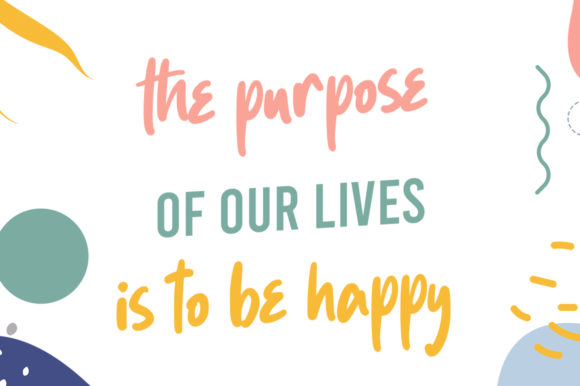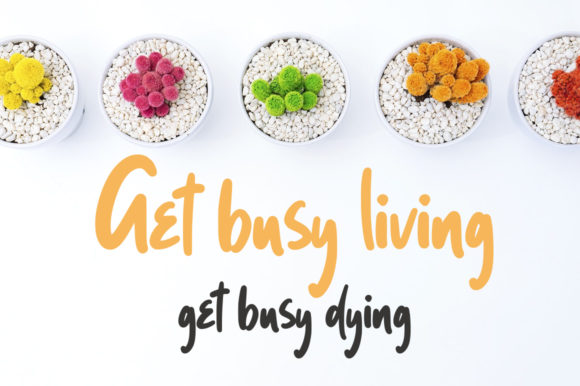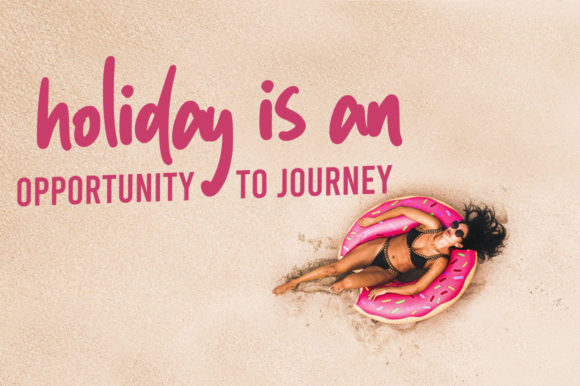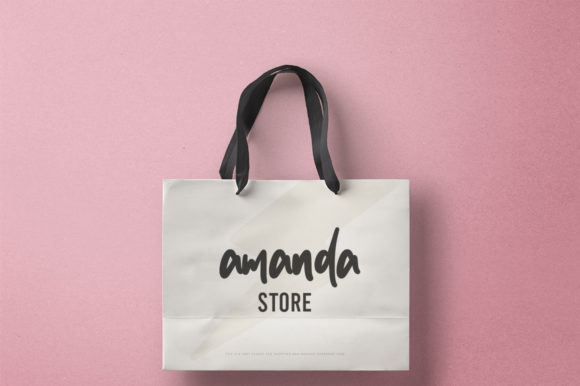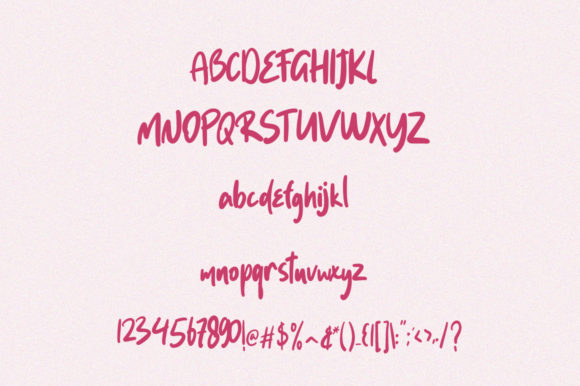
Brenlla Font: Unlock Your Creativity
You know that moment when you’re brainstorming ideas and everything clicks into place? Your mind is racing with possibilities, and your imagination is running wild. It’s exhilarating, isn’t it? For designers, finding the perfect font can be the missing piece that takes a project from good to great. That’s where the Brenlla Font comes in – a sweet and friendly handwritten font that’s sure to bring a smile to your face.
Brenlla Font is designed to be versatile and adaptable, making it the perfect addition to a wide range of designs. From wedding invitations to social media graphics, its natural and unique style will add a personal touch that sets your work apart. Whether you’re a seasoned pro or just starting out, Brenlla Font is a valuable asset to have in your design toolkit.
Brenlla Font Key Features
- Unique Characteristics: The font features a unique blend of Scandinavian and minimalist design elements, making it perfect for designers looking for a modern and stylish font.
- Stylistic Sets: The font includes multiple stylistic sets, allowing designers to customize the font to suit their specific design needs and preferences.
Brenlla Font Review
I recently had the chance to work with the Brenlla font, and I’m excited to share my thoughts with you. Overall, I found it to be a beautiful and unique font, perfect for adding a touch of elegance to your designs.
- Elegant and sophisticated feel: The Brenlla font has a classic, high-end feel that’s perfect for luxury brands or high-end designs.
- Versatile: The font is available in a range of weights and styles, making it easy to find the perfect fit for your design.
- Beautiful curves: The font’s curves are smooth and flowing, making it a joy to work with.
- Limited language support: The font only supports a limited range of languages, which may be a drawback for designers working on international projects.
- Not ideal for body text: The font is best suited for headlines and titles, as it can be difficult to read in large blocks of text.
Overall, I was impressed with the Brenlla font and its unique, elegant feel. While it may have some limitations, it’s a great choice for designers looking to add a touch of sophistication to their designs.
Tips for Getting the Most Out of Brenlla Font
Use Brenlla font for creative projects that require a unique and stylish look. This font is ideal for headings, titles, and emphasis.
Brenlla has been optimized for use in digital displays, with a focus on legibility at various screen resolutions and sizes. However, it’s always a good idea to test the font in the specific context it will be used in to ensure optimal results.